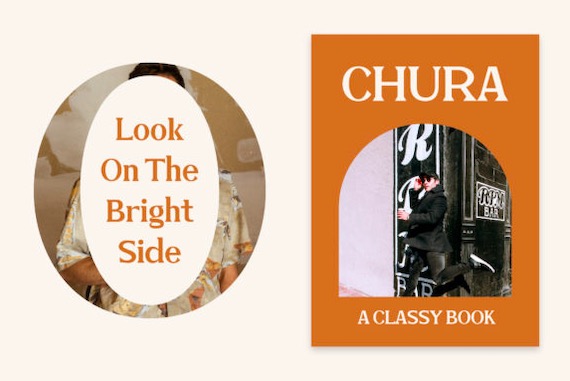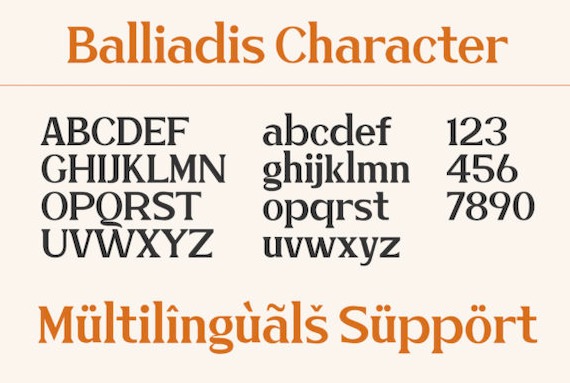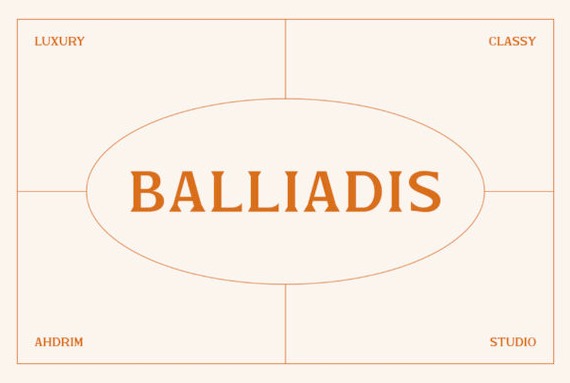
Balliadis Font
Balliadis Font is a classy and modern serif typeface with a versatile strong look while elegance is still maintained. It will boost your design stand out!
Balliadis is the perfect typeface for any kind of your project, such as advertisements, branding, graphic design, quotes, wedding design, logo for online or offline business, photography, and others. Make your business more elegant beautiful!
Multilingual glyphs.